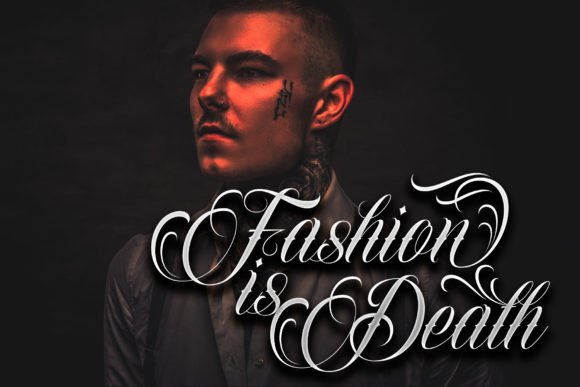
Reagen Youth Font
Reagen Youth is a contemporary script blackletter tattoo font that feels right at home on logos, t-shirt designs, posters, flyers, and other brand identity items. Add it confidently to your projects, and you will love the results.